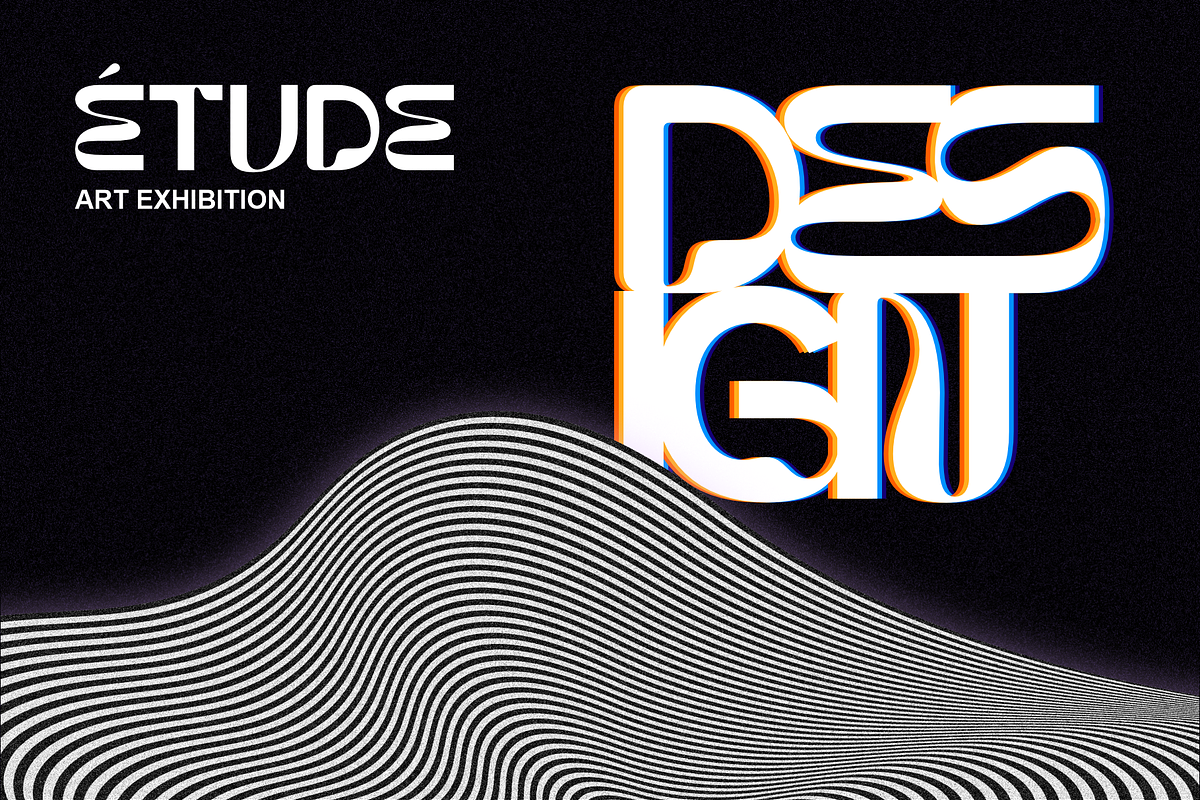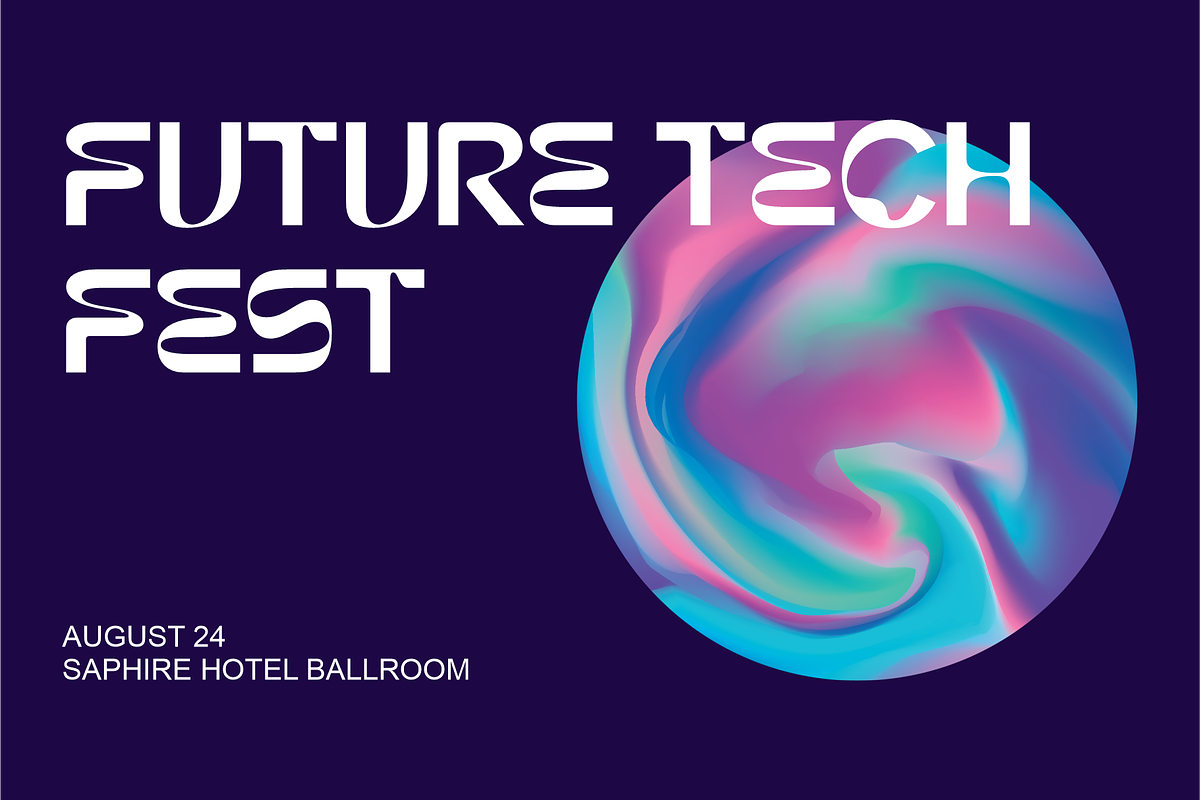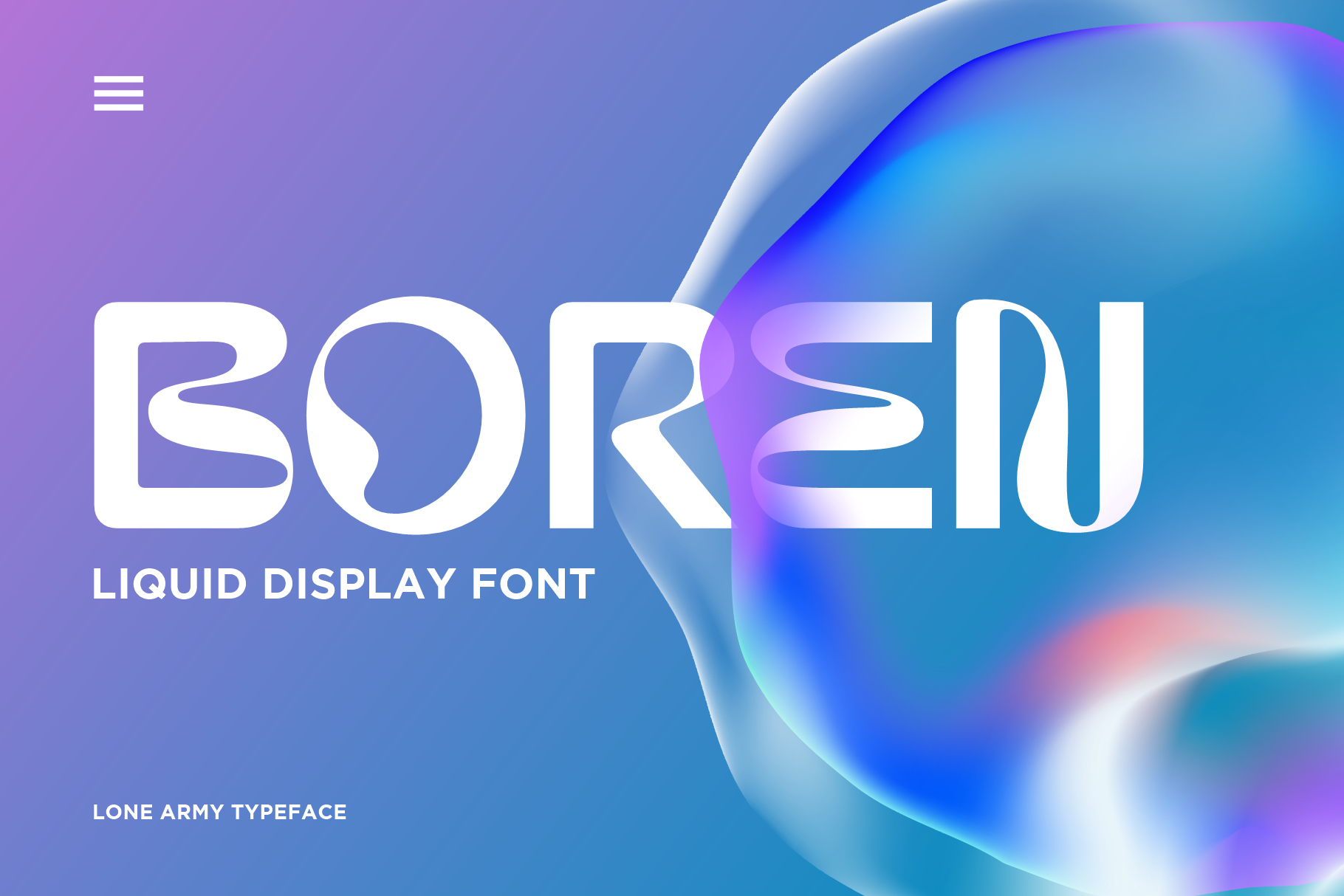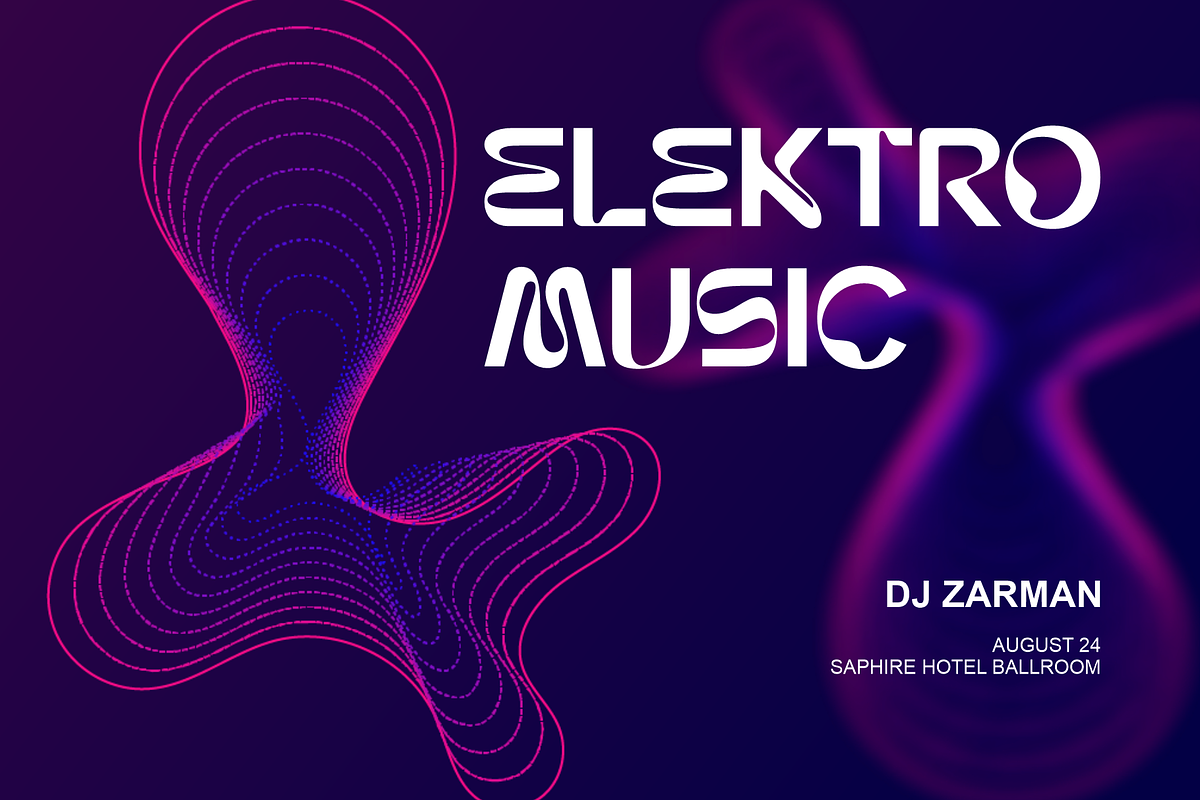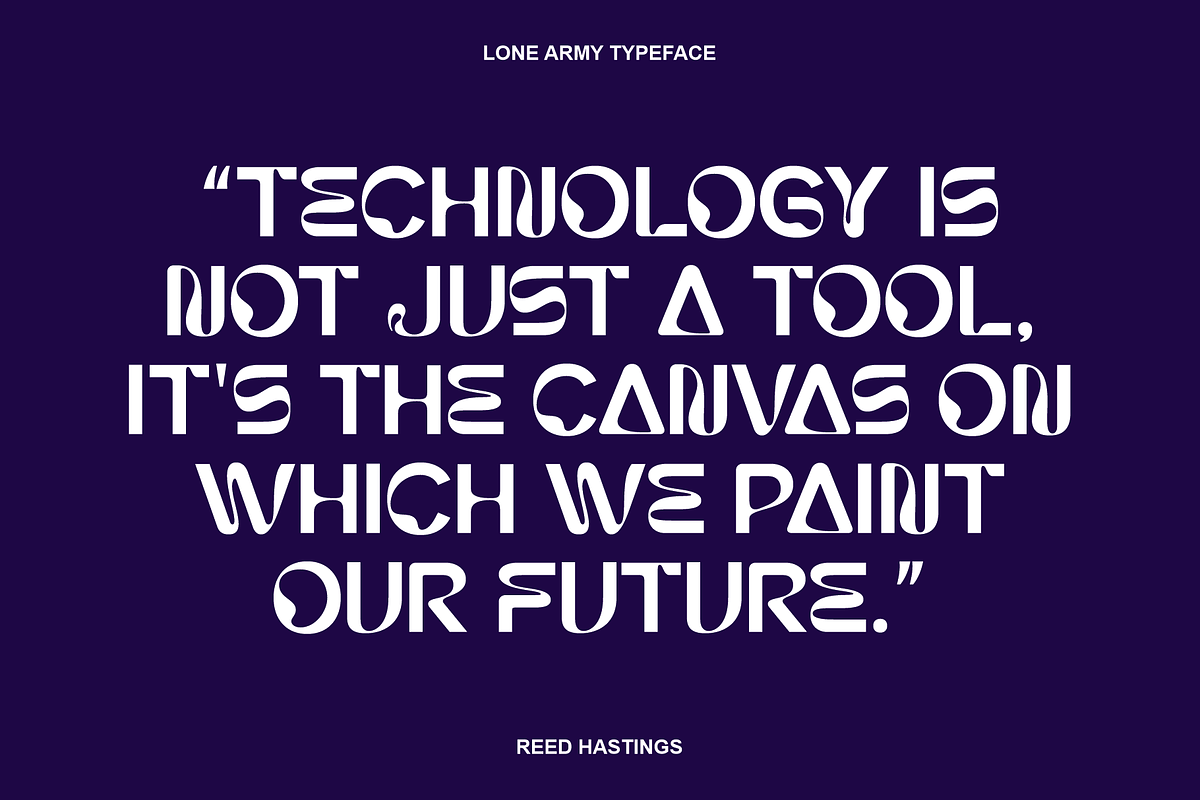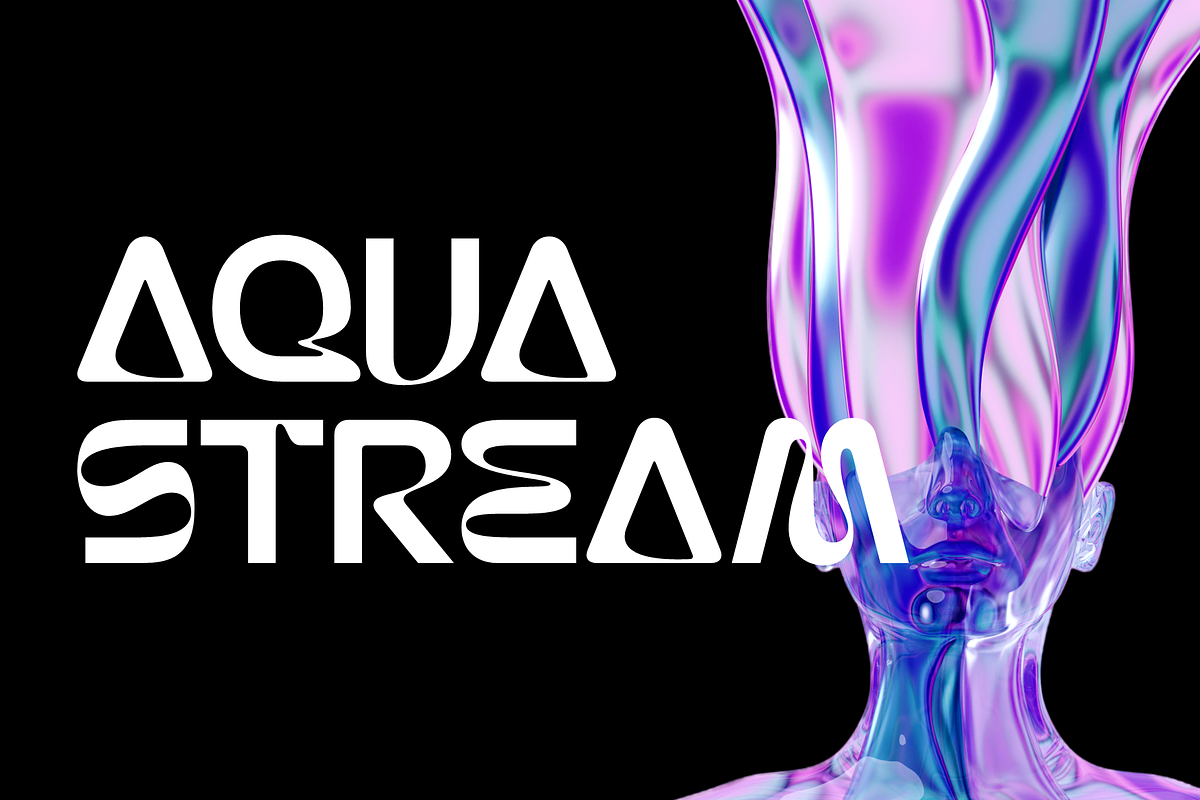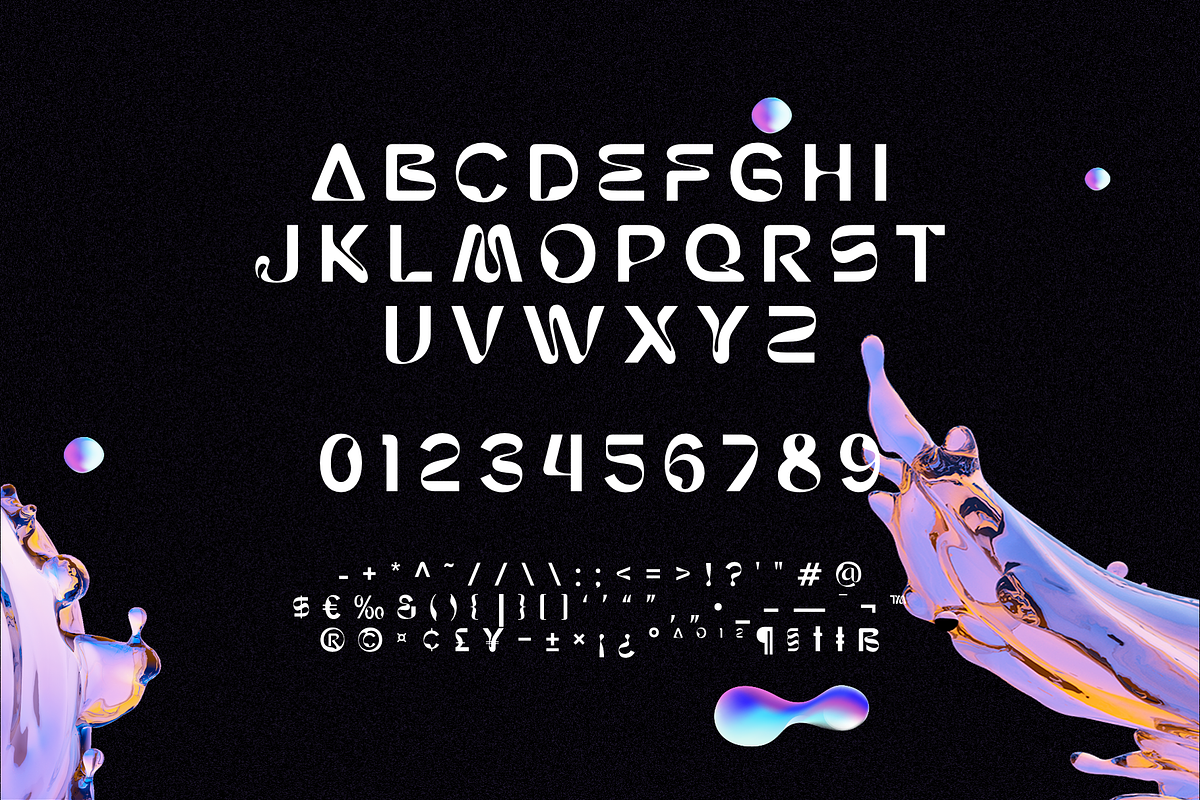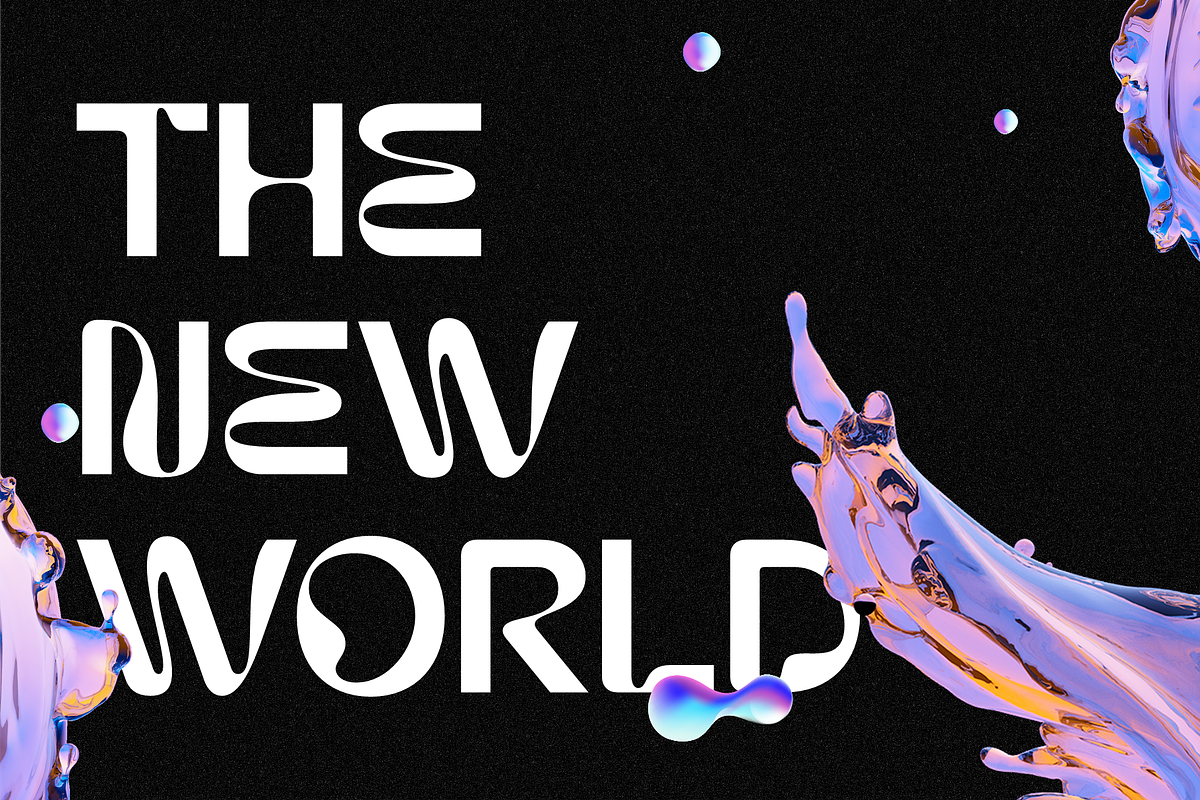
BOREN - LIQUID FONT
BOREN is a revolutionary sans serif font with a futuristic LiquidFlow style. Its flowing and dynamic design brings modernity and creativity to your projects.
Crafted with precision, BOREN combines futuristic architectural elements with smooth lines, creating a captivating and unique aesthetic.
With a high-tech aura and minimalist elegance, BOREN adds professionalism to advertising, branding, and web design.
Versatile and flexible, BOREN adapts seamlessly to various visual styles, ensuring standout and visually arresting designs.